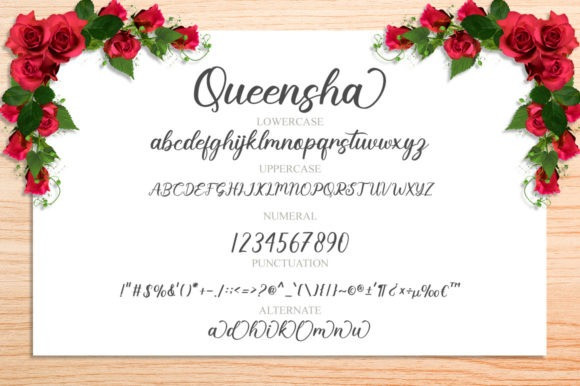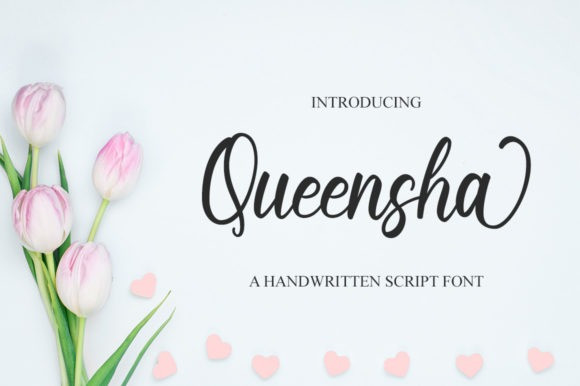
Queensha Font
Queensha Font is a stylish and incredibly elegant script font. It looks stunning on wedding invitations, thank you cards, quotes, greeting cards, logos, business cards, or any other design that needs a handwritten touch.